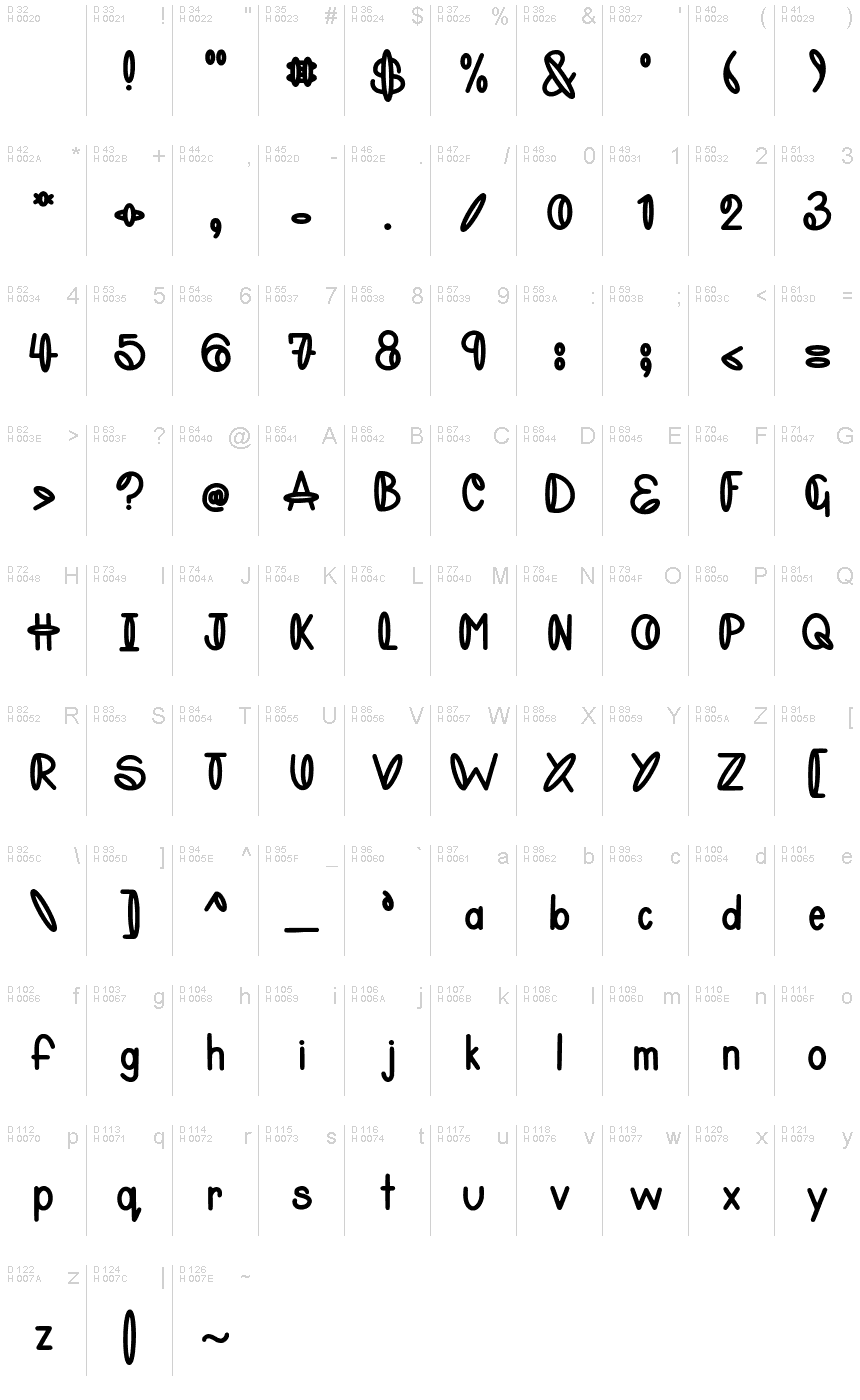
Oval Outlooks Regular
Oval Outlooks, a charming semi-light handwritten font designed by Emily Mills, is perfect for projects seeking a personal touch. Its unique style adds a whimsical flair to invitations, greeting cards, and branding materials. The font's organic curves and playful angles evoke a sense of friendliness and approachability. Oval Outlooks is versatile enough to be used for both formal and informal occasions. Its legibility makes it suitable for body copy or headlines in print or digital formats. Whether you're working on wedding invitations or social media graphics, Oval Outlooks is sure to elevate your project with its delightful personality.